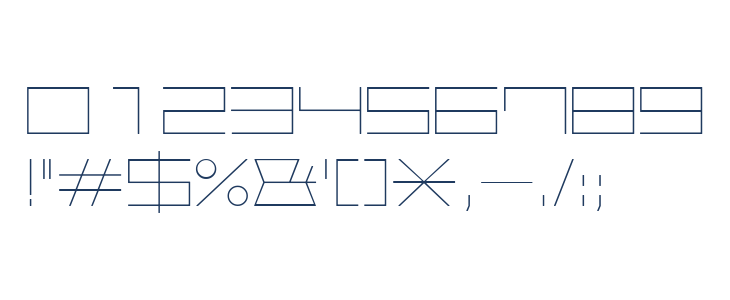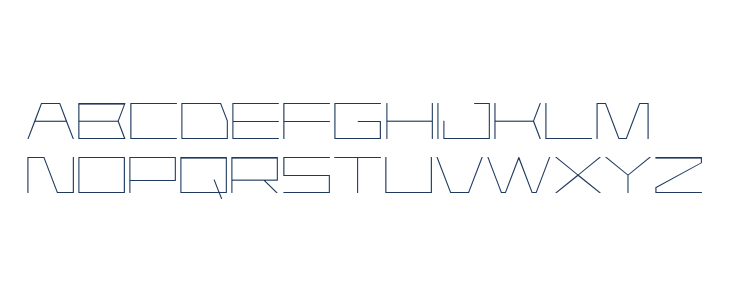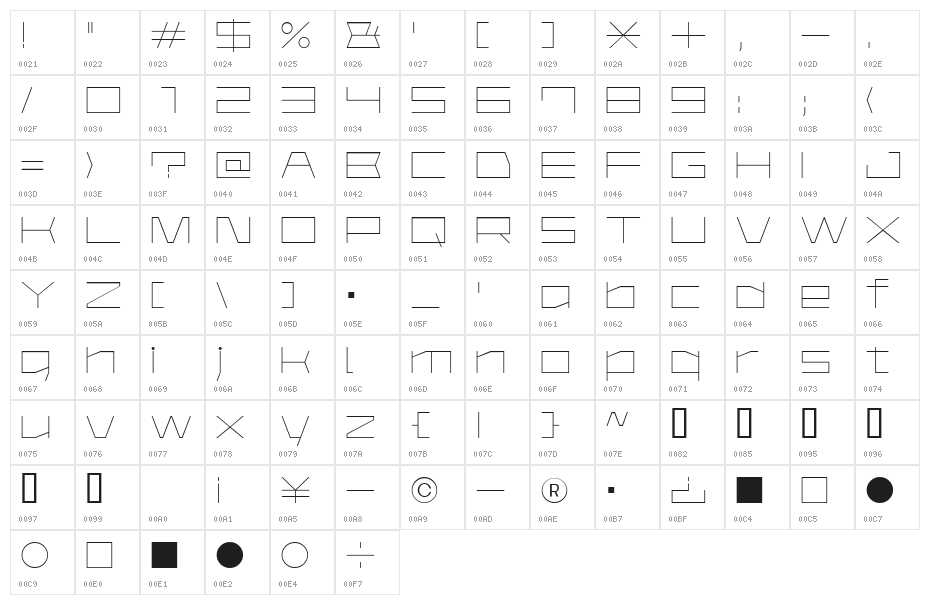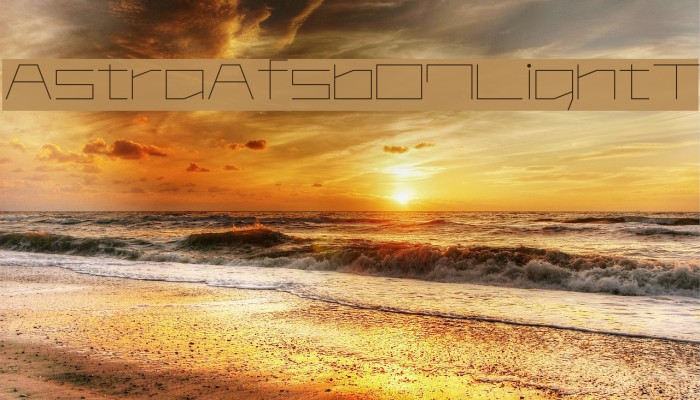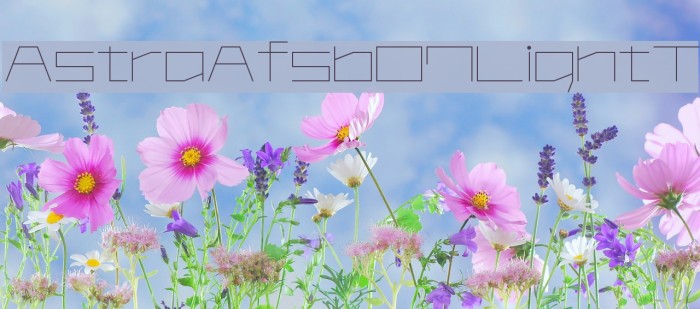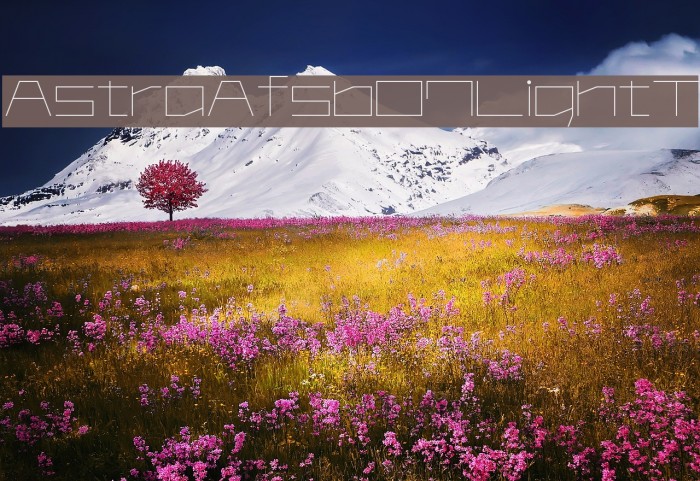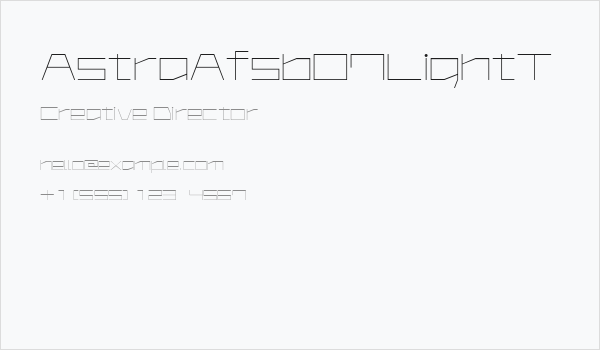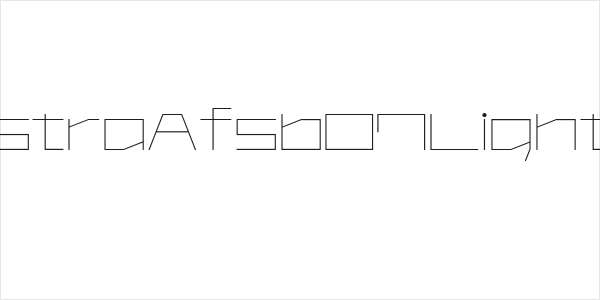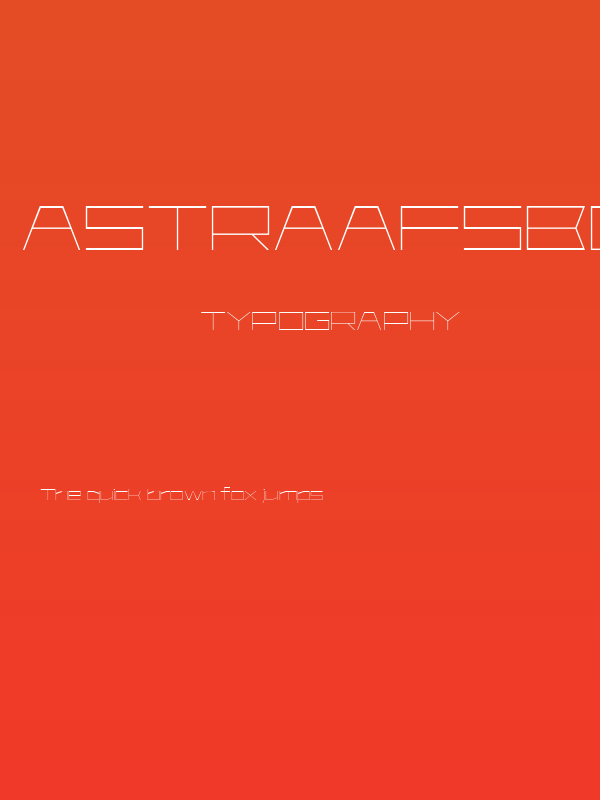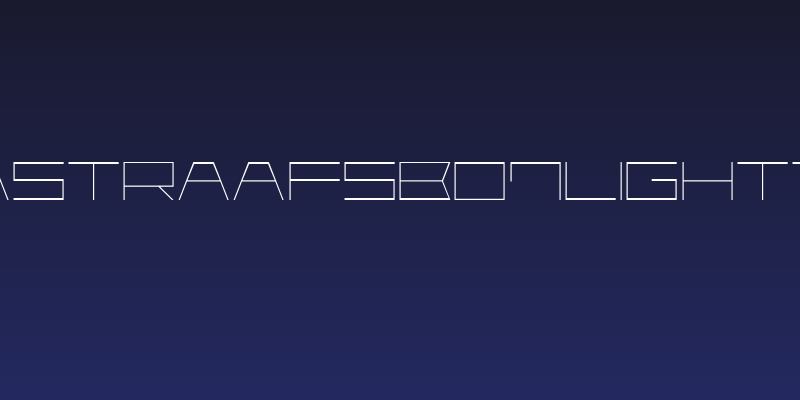
AstraAfsb07LightT Font
AstraAfsb07LightT Description
This font features a geometric and minimalist design, characterized by its thin, linear strokes and angular shapes. The letters are constructed with straight lines and sharp angles, giving it a futuristic and technical appearance. The uppercase and lowercase letters maintain a consistent style, with the lowercase letters slightly smaller but equally angular. Numbers and special characters follow the same design principles, ensuring uniformity across all glyphs. The font's clean and precise lines make it suitable for modern and tech-oriented projects.
| Use Case | Logos, Headlines, Digital interfaces |
| Proposed Projects | Ideal for tech branding, modern art posters, digital interfaces, and futuristic designs. |